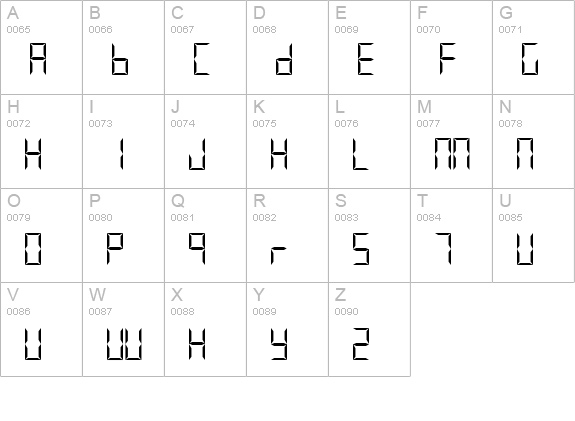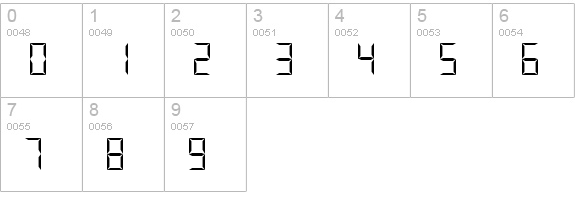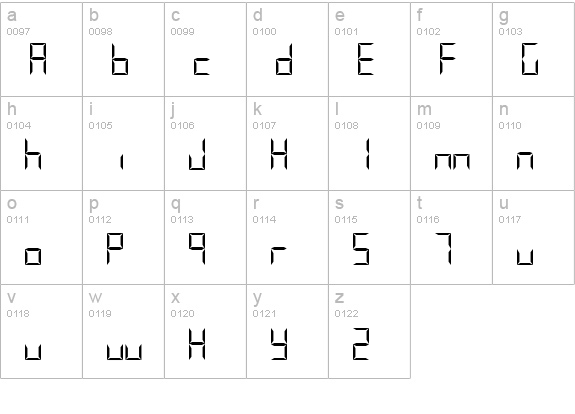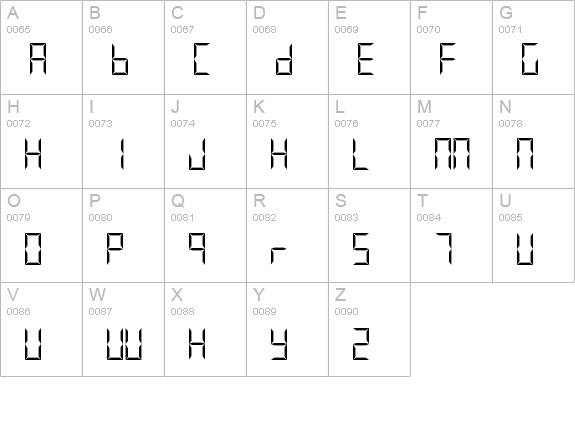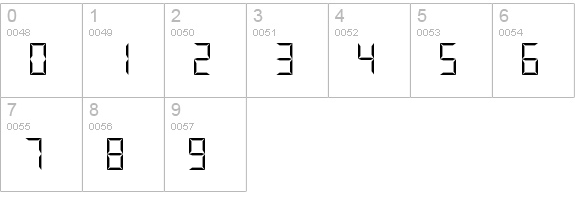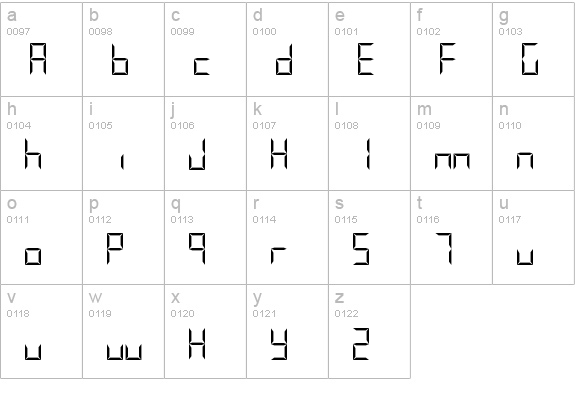
4Function Strict Font Details
Introducing the captivating and versatile 4Function Strict font, a remarkable typeface that effortlessly combines elegance with a modern edge. This font is the perfect choice for any project that requires a sophisticated and professional look. With its clean and crisp lines, 4Function Strict font exudes a sense of precision and clarity that is sure to make a lasting impression. Its refined letterforms and balanced proportions create a harmonious visual experience, making it ideal for both display and text purposes. What sets 4Function Strict font apart is not just its impeccable design, but also its accessibility. We are thrilled to announce that this remarkable font is freely available to download at FontsMarket.com. This means that you can easily access and incorporate this font into your creative projects without any limitations, whether it be for personal or commercial use. With its extensive character set and numerous stylistic alternates, 4Function Strict font offers endless possibilities for creative expression. From branding and advertising to packaging and web design, this font will elevate your work to new heights, adding a touch of sophistication and professionalism. Whether you are a seasoned designer or just starting out, 4Function Strict font is a valuable addition to your font library. Its timeless appeal and versatility make it a go-to choice for any project, ensuring that your designs stand out from the crowd. So why wait? Don't miss out on this exceptional font! Download 4Function Strict font for free at FontsMarket.com and unlock a world of typographic possibilities.